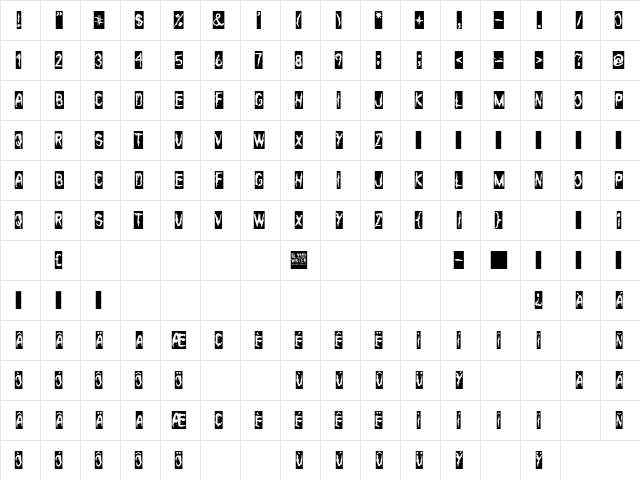
Bloody Winter Regular
| Designer | Jordi Manero Pascual |
Design Context for Bloody Winter Typeface
Bloody Winter carries an unsettling edge — its distorted letterforms are built to unsettle, perfectly suited to horror, Halloween, and dark creative work.
Ideal for Halloween projects, horror film titles, haunted house signage, and dark editorial design.
Font Pairing: Pair with a clean neutral sans-serif for body copy to let Bloody Winter's character lead without overwhelming the composition.
Pro Tip: Bloody Winter works best as a headline or focal element. Pair it against plain, neutral body text to amplify the contrast.